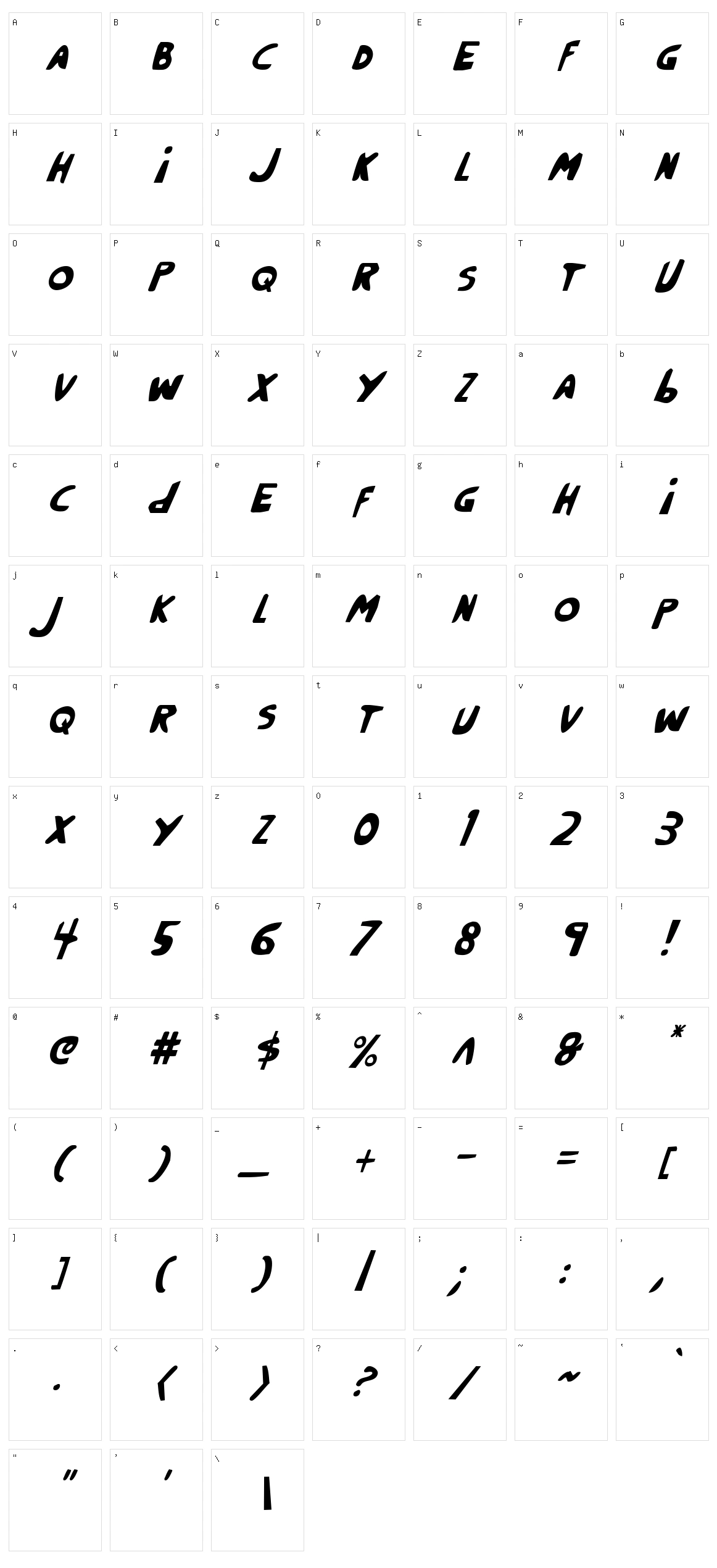
The free font Crappity Crap Crap is carefully designed by Iconian Fonts, showcasing a thoughtful balance of creativity and usability and falls under the Cartoon font style. When you download the ZIP file, it contains only 273.27 KB of font files, making it lightweight and quick to download. Please review the license details below to understand permitted usage and distribution rights. If license information is not available, we recommend using this font for personal projects only or contacting the author directly for commercial usage permissions.
This font comes in 7 versions - Regular, Italic, Condensed, Condensed Italic, Leftalic, Pro and 3D.